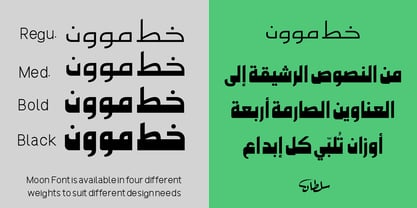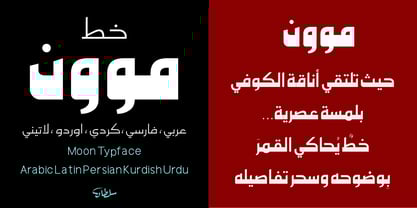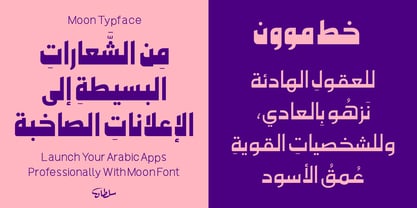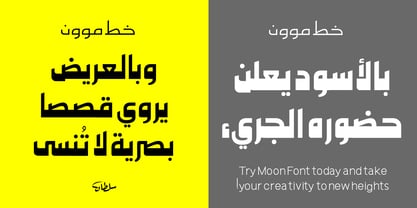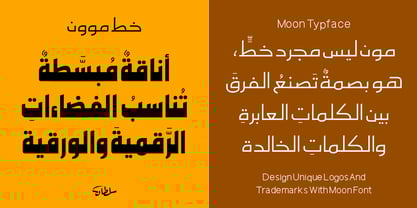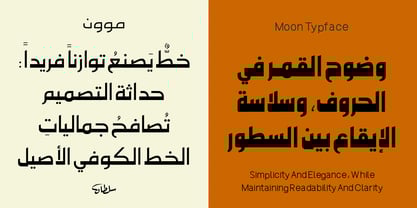
SF Moon
by Sultan Fonts
The SF Moon Font Family was designed by Sultan Maqtari and published by Sultan Fonts. SF Moon contains 4 styles and family package options.
Moon Font
Four Weights for Creative Headlines & Professional Designs!
Looking for a bold and eye-catching font that adds a professional touch to your designs? Moon Font is the perfect choice! With four distinctive weights (Regular, Medium, Bold, and Black) and a sleek, modern design, it’s ideal for creating unforgettable headlines and stunning visual presentations.
Moon Font Features:
Four versatile weights to suit all your design needs, from headlines to creative presentations.
Modern and stylish design that complements contemporary aesthetics.
High readability and clarity to make your headlines stand out.
Perfect for:
✓ Texts
✓ Main and subheadings
✓ Presentations
✓ Banners and digital designs
✓ Packaging and branding
✓ Print advertisements and marketing materials
Moon Font – A Creative & Professional Touch for Your Designs!
About Sultan Fonts
Sultan Fonts is an independent studio founded in 2003 by Sultan Maqtari in Aden, Yemen. The studio produces high-quality Arabic and Latin fonts for individuals, institutions, and exclusive use.Sultan Fonts' fonts are reliable and safe, and they are integrated with design tools. They are also diverse and renewable, supporting multiple languages and coming in different weights and variations. Sultan Fonts' fonts are protected by copyright, and post-purchase support is provided.